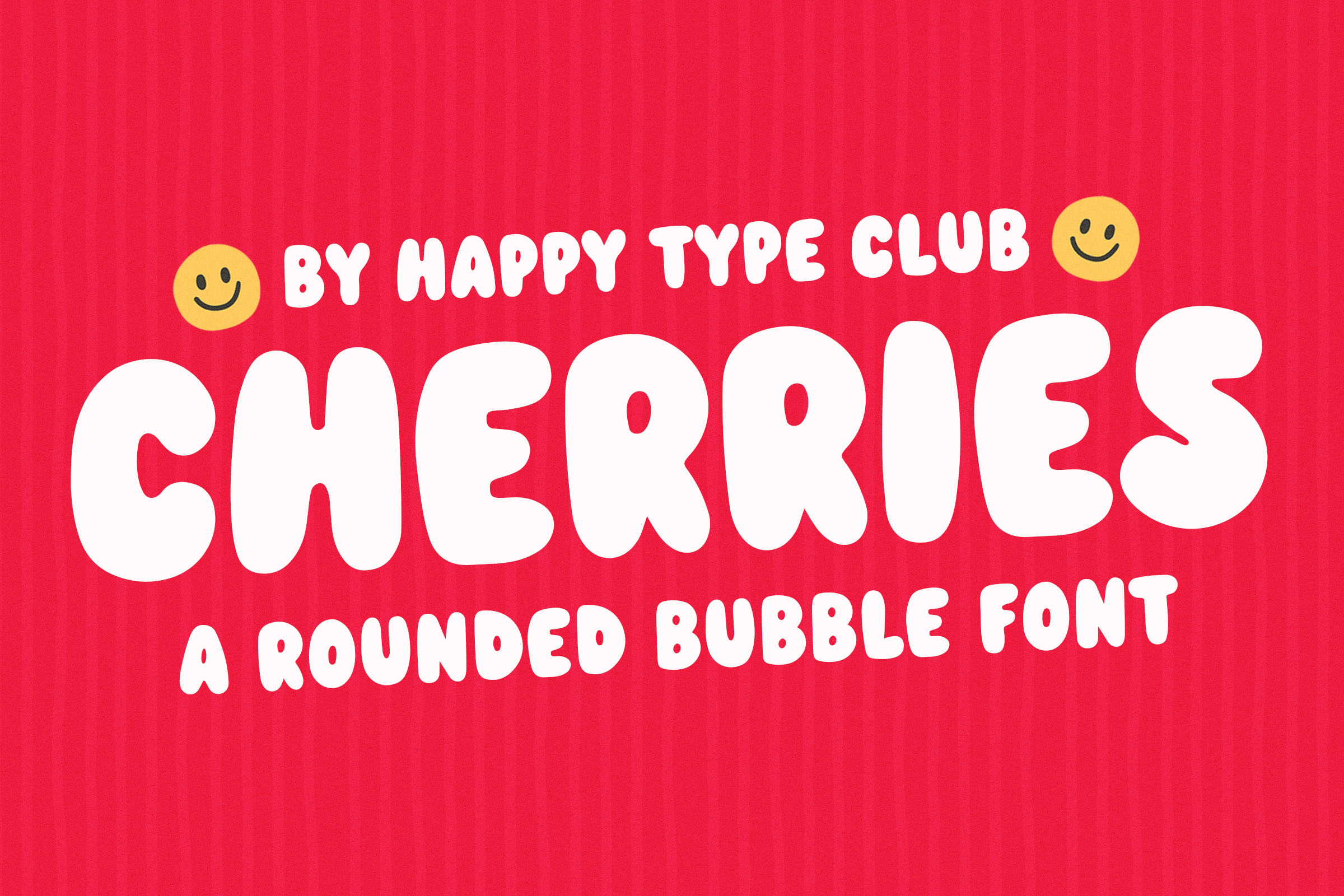
Cherries - A Rounded Bubble Font
Cherries is a fun cute bubble typeface perfect for any fun quirky design work! This font can be used for anything such as t-shirt designs, phone cases, greeting cards, invitations, mugs and so much more! Get creative! YOU WILL RECEIVE: OTF version of Cherries TTF version of Cherries Not sure how to install the font? https://creativemarket.com/blog/how-to-install-your-new-font-in-a-few-easy-steps Enjoy! Izzy :)